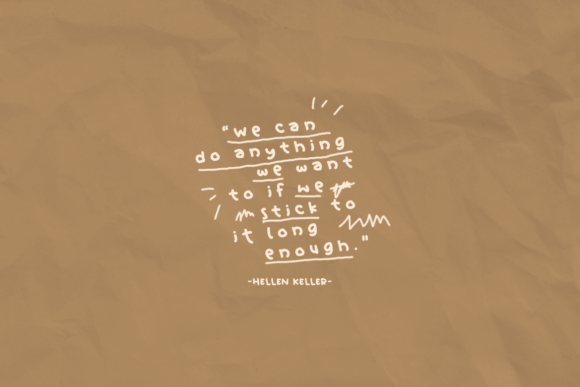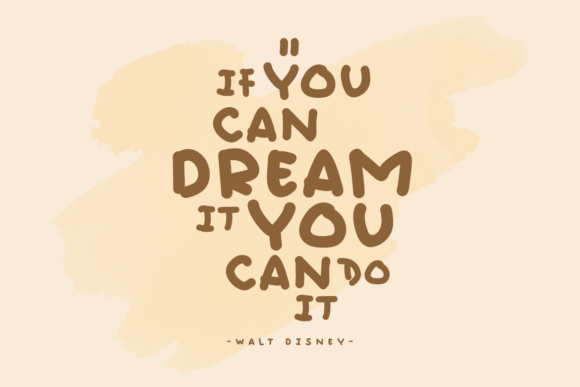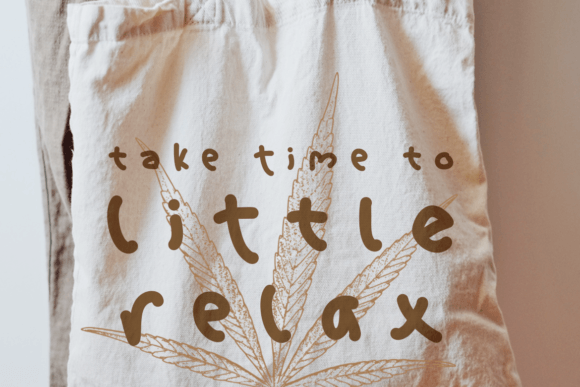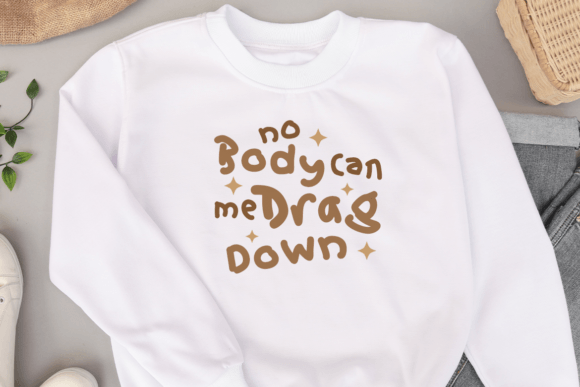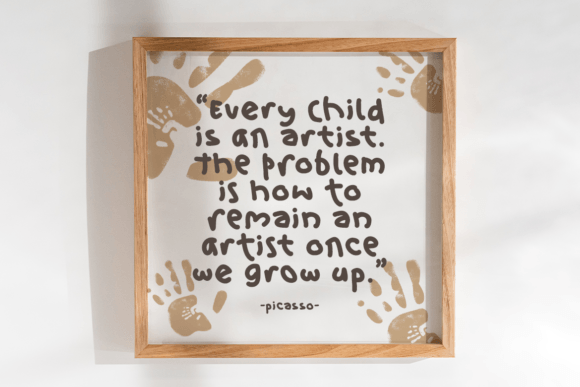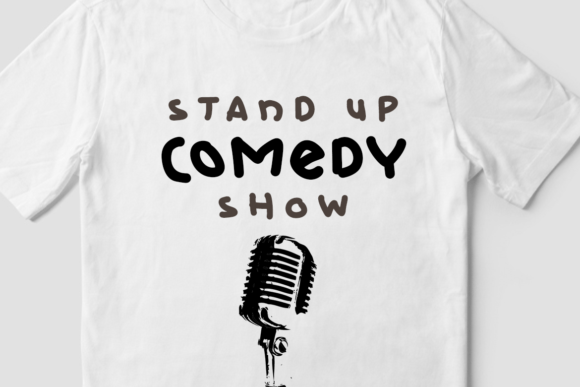
Introduction to Sanurumi Handwritten Font
Sanurumi Handwritten is a versatile and stylish handwritten font, perfect for a wide spectrum of applications such as greeting cards, headlines, and many more.
Add it to any of your creative projects, and it will give them a clean and exquisite feel .
Sanurumi Handwritten Font offers exceptional quality and versatility, making it a valuable addition to your design toolkit. Whether you’re creating for personal projects or commercial use, Sanurumi Handwritten Font delivers professional results.